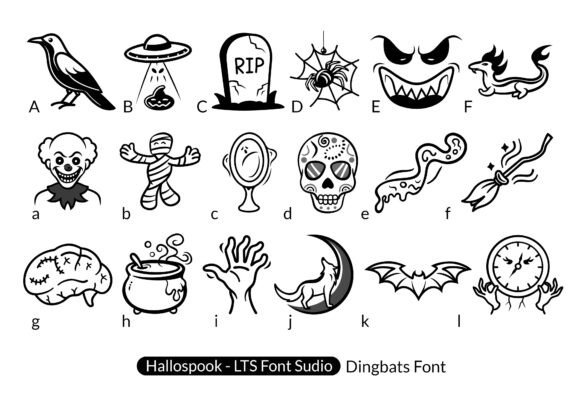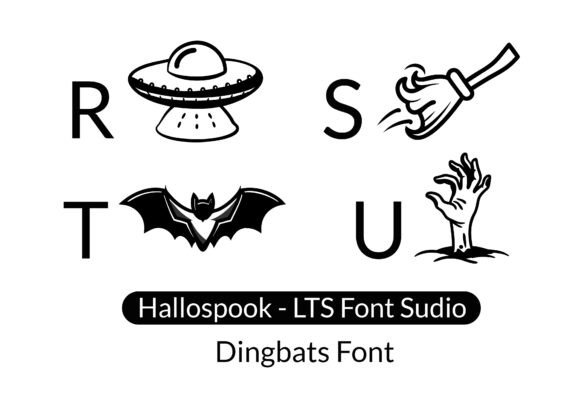
Hallospook Font: Eerie Halloween Dingbats for Cricut & DIY Crafts
About the Hallospook Font
From logos to headlines, the Hallospook Font is the perfect choice for making a lasting impression. Halloween Spooky is a fun and eerie dingbat font with a hauntingly charming theme in a sketchy style. This font is perfect for adding a spooky touch to your creative projects, such as Halloween party invitations, DIY crafts, decorations, logos, t-shirts, and many other frightfully fun designs. Let your creativity run wild with this spooky and playful font!
Hallospook excels in projects requiring a playful yet slightly eerie aesthetic. Ideal applications include Halloween-themed branding, short headlines, posters, and packaging design where its sketchy style adds visual interest. Avoid using it for large blocks of text or body copy; its unique character is best suited for impactful accents rather than extended readability.
Consider pairing Hallospook with a clean sans-serif like Open Sans for a balanced contrast, or a classic serif such as Garamond for a more sophisticated feel. A playful script font could also work well, depending on the specific design needs, adding a layer of whimsicality to complement its spooky charm.
Hallospook’s overall personality is best described as playfully spooky; it’s bold and attention-grabbing but maintains a lighthearted and approachable tone, making it suitable for brands targeting a younger demographic or those with a fun, quirky image.